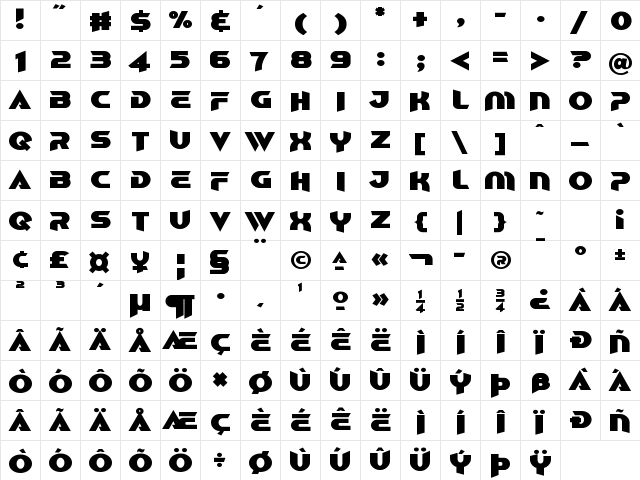
Balisong Ultra Regular
Designer: J￿n Garnica
Design Context for Balisong Ultra
Balisong Ultra is a composed and adaptable typeface that performs quietly and consistently across a wide range of design contexts.
Pro Tip: Use Balisong Ultra in both headline and body roles to test its range before committing to a single application.